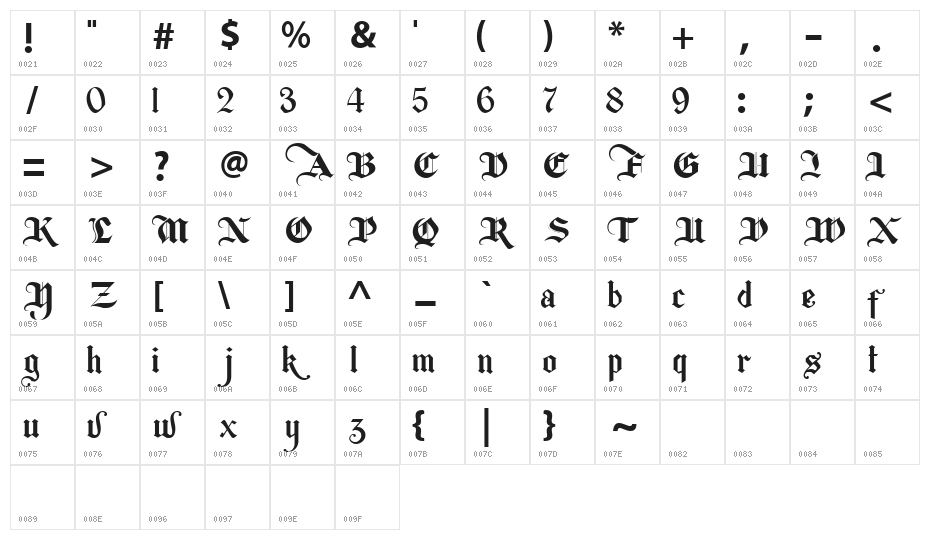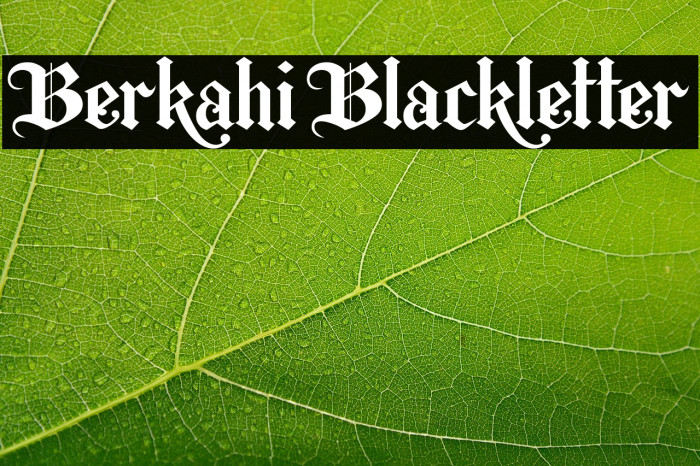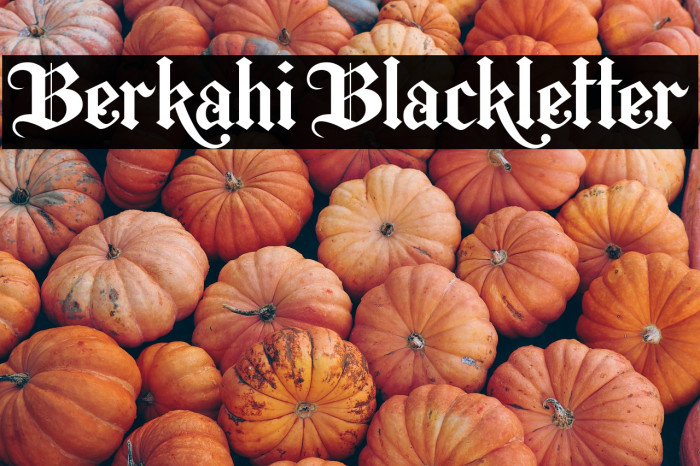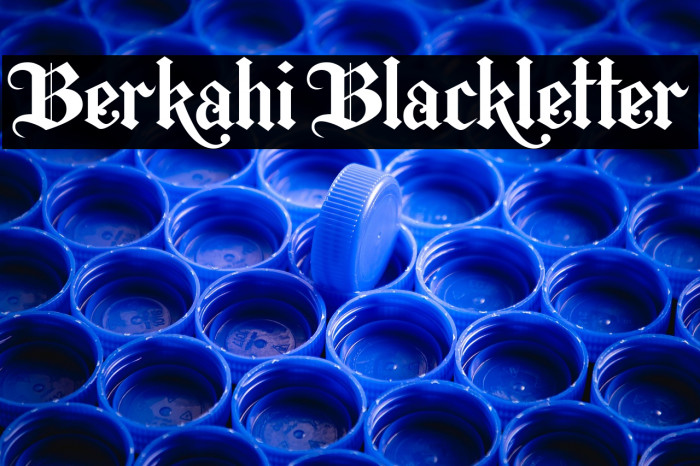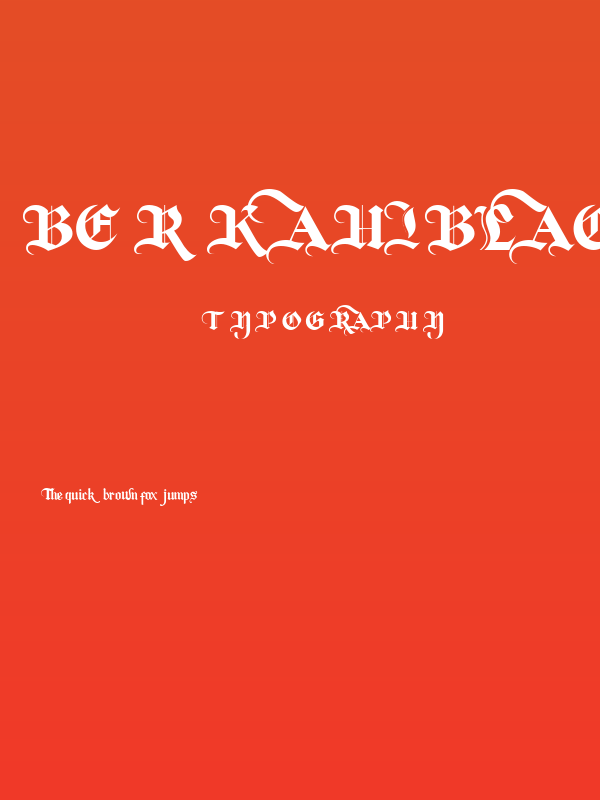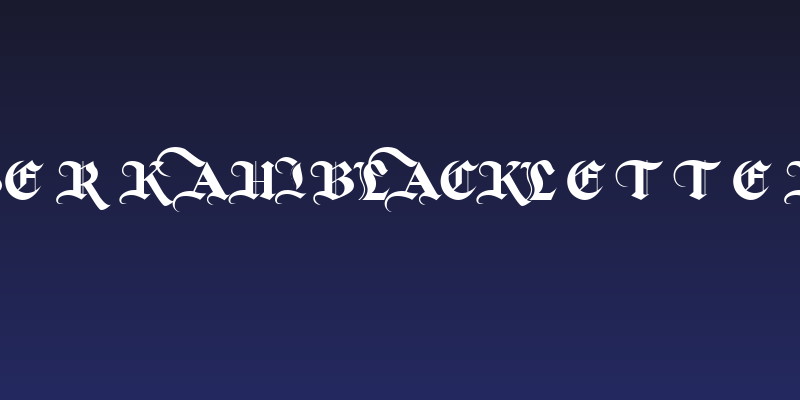
Berkahi Blackletter Font
Berkahi Blackletter Description
This font is a striking example of Blackletter style, characterized by its intricate and ornate letterforms. The uppercase letters feature sharp, angular lines with decorative flourishes that evoke a sense of historical elegance. The lowercase letters maintain a consistent style, with bold strokes and pointed serifs that enhance the font's dramatic appearance. The numerals are equally stylized, integrating seamlessly with the overall design. Special characters are crafted with the same attention to detail, ensuring a cohesive look across all glyphs. This font's bold presence and historical roots make it ideal for projects that require a touch of classic sophistication.
| Use Case | Headlines, Logos, Decorative text |
| Proposed Projects | Ideal for vintage-themed designs, book covers, posters, and branding that requires a classic and sophisticated touch. |